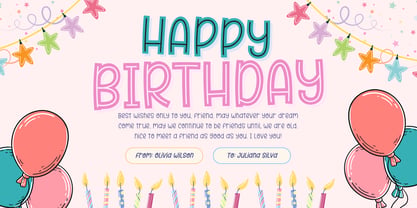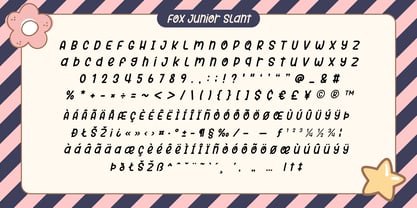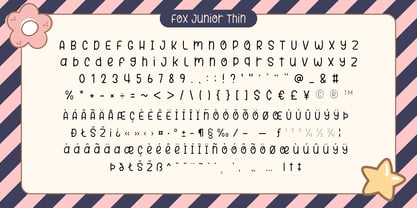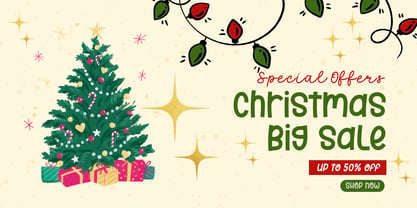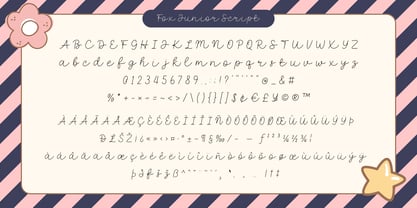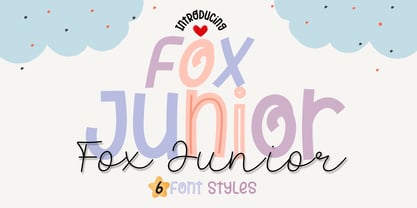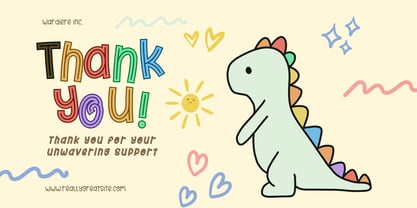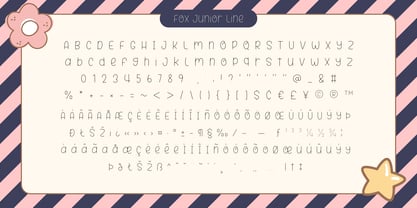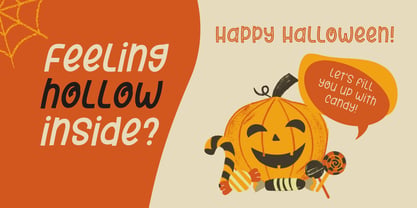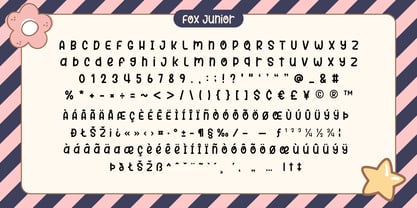
Fox Junior
by Fox7
The Fox Junior Font Family was designed by Rattana Rattanawan and published by Fox7. Fox Junior contains 6 styles and family package options. More about this family
Fox Junior is a charming and playful display font featuring 6 unique styles. Its vibrant and energetic design makes it perfect for creating eye-catching headlines, t-shirt prints, banners, product labels, and much more. With its versatility and bold personality, it brings a fun and captivating touch to any project!
Designers: Rattana Rattanawan
Current Foundry: Fox7